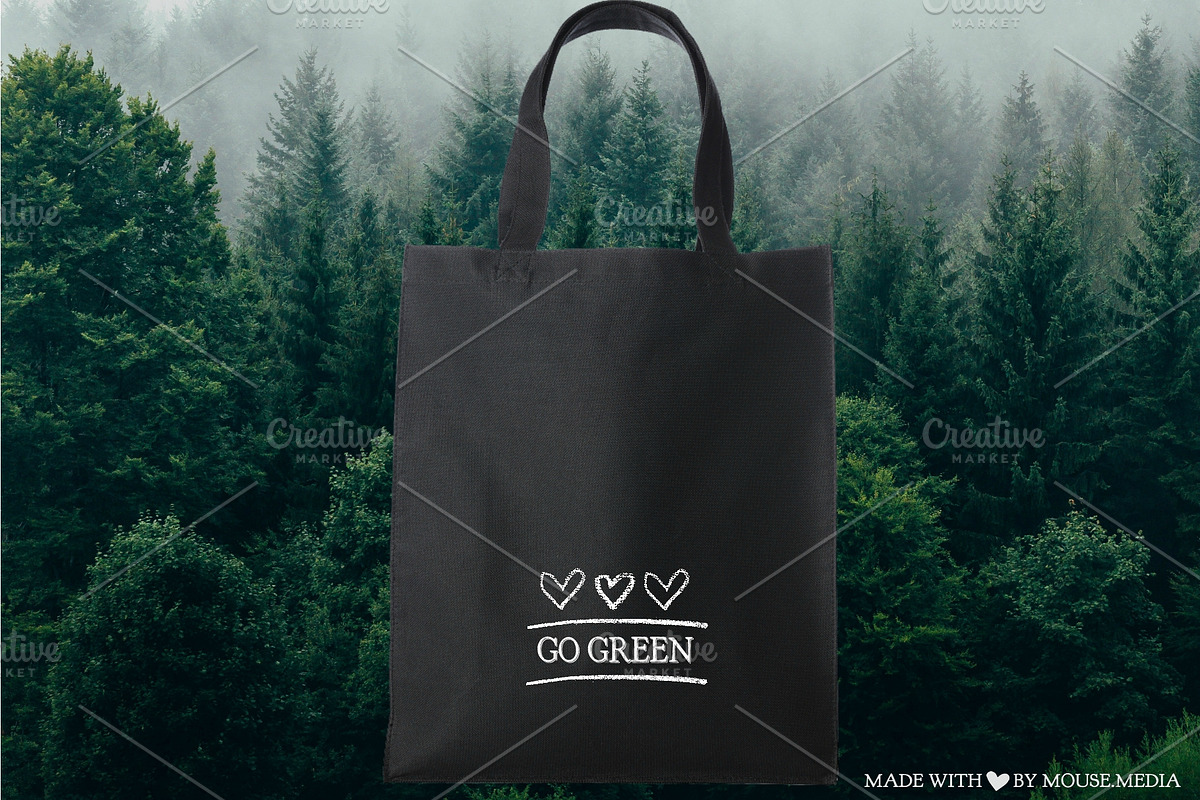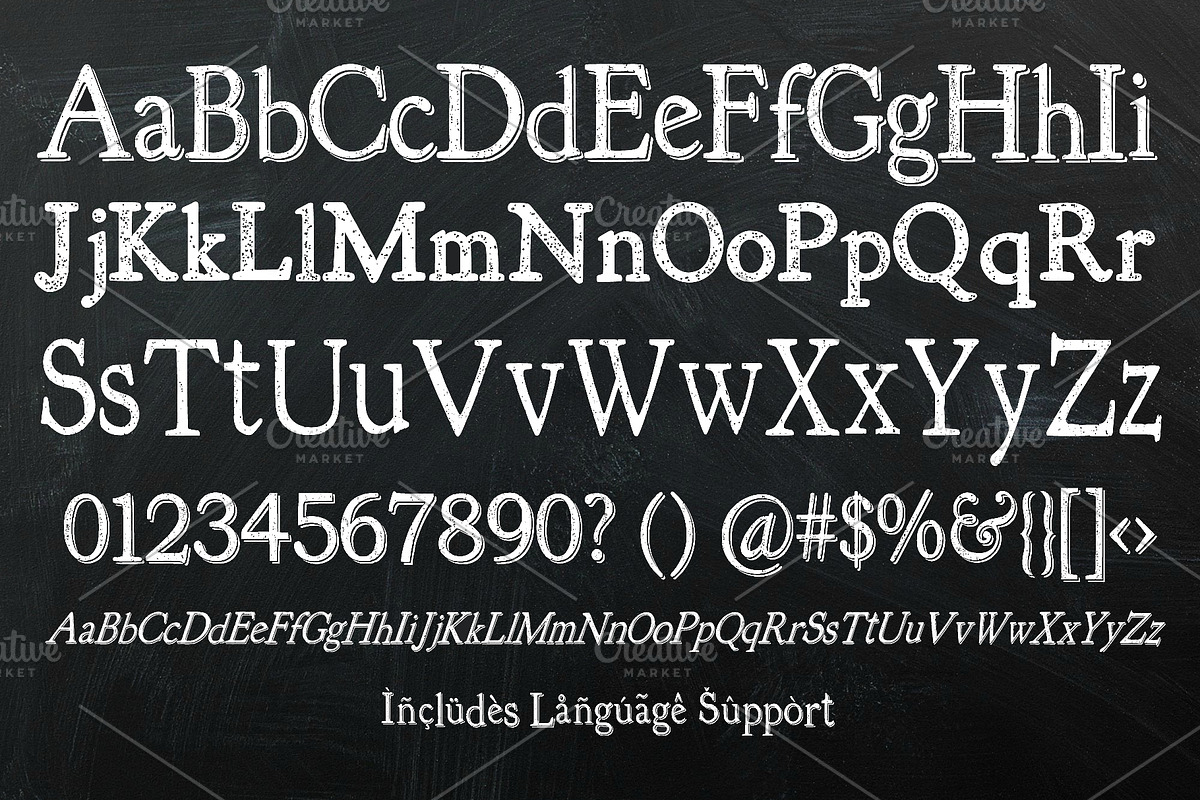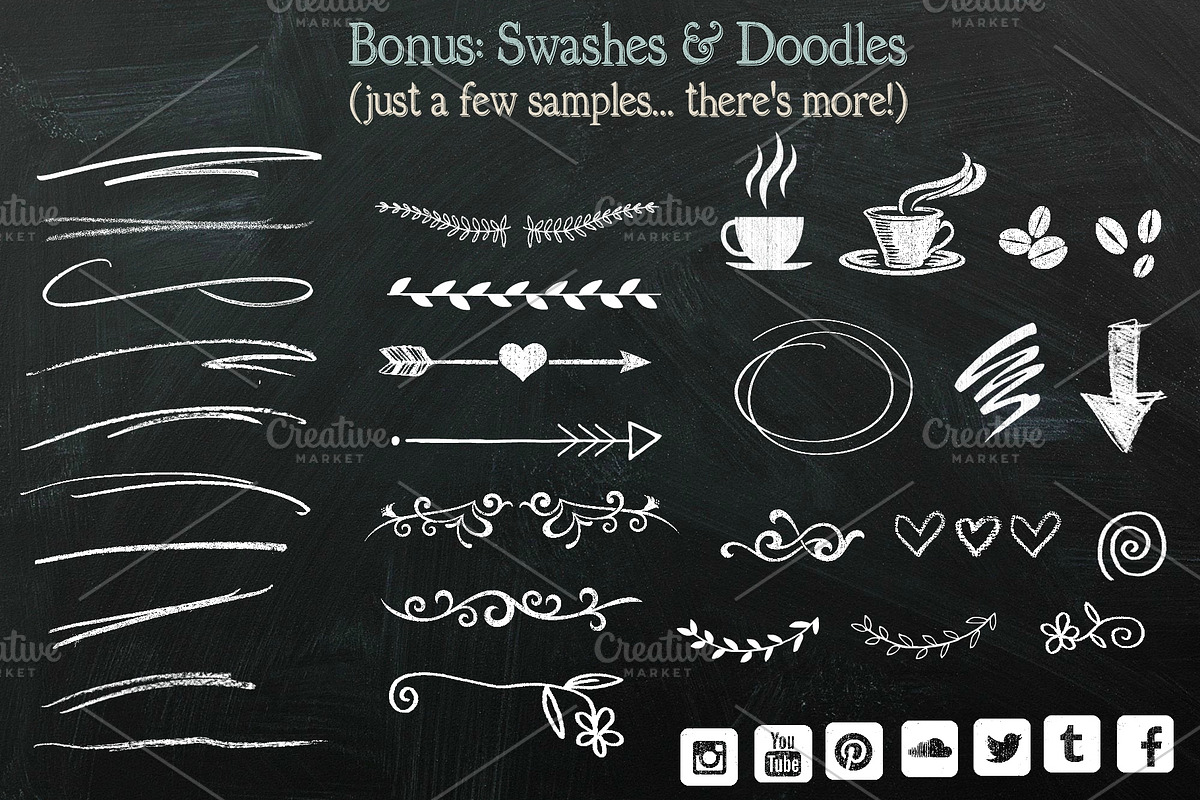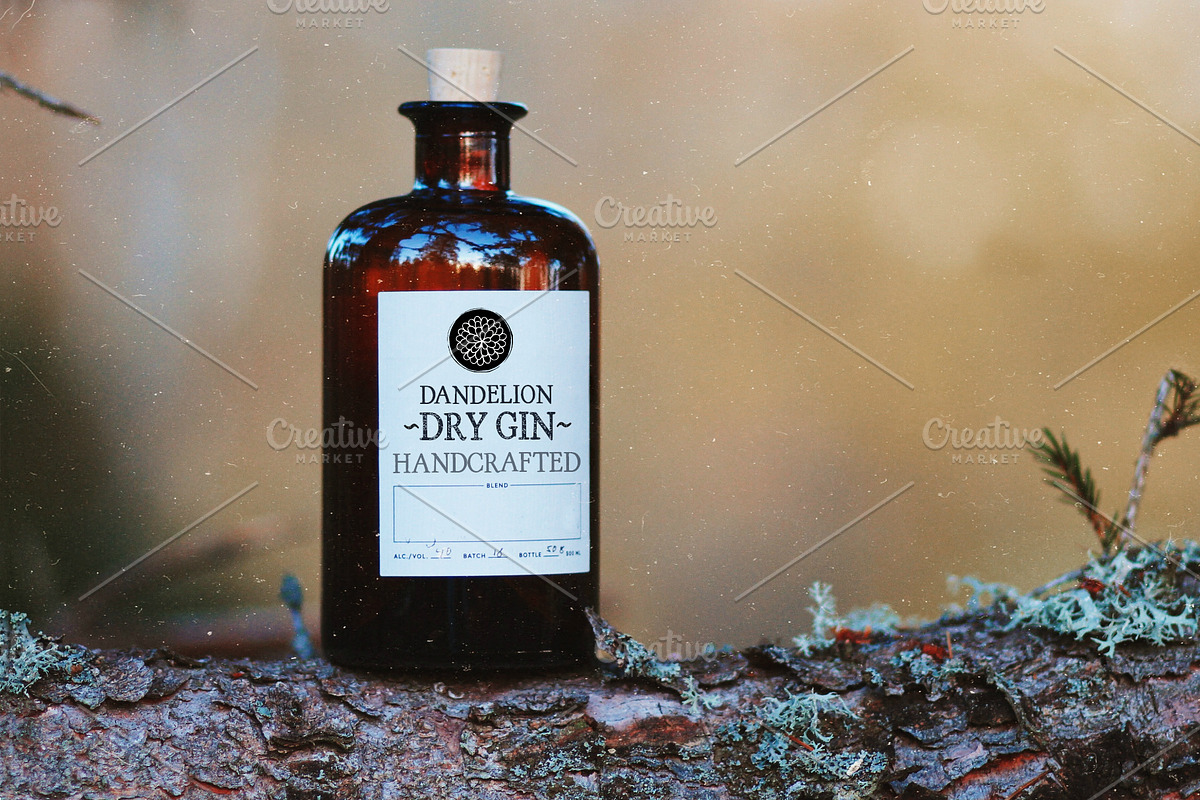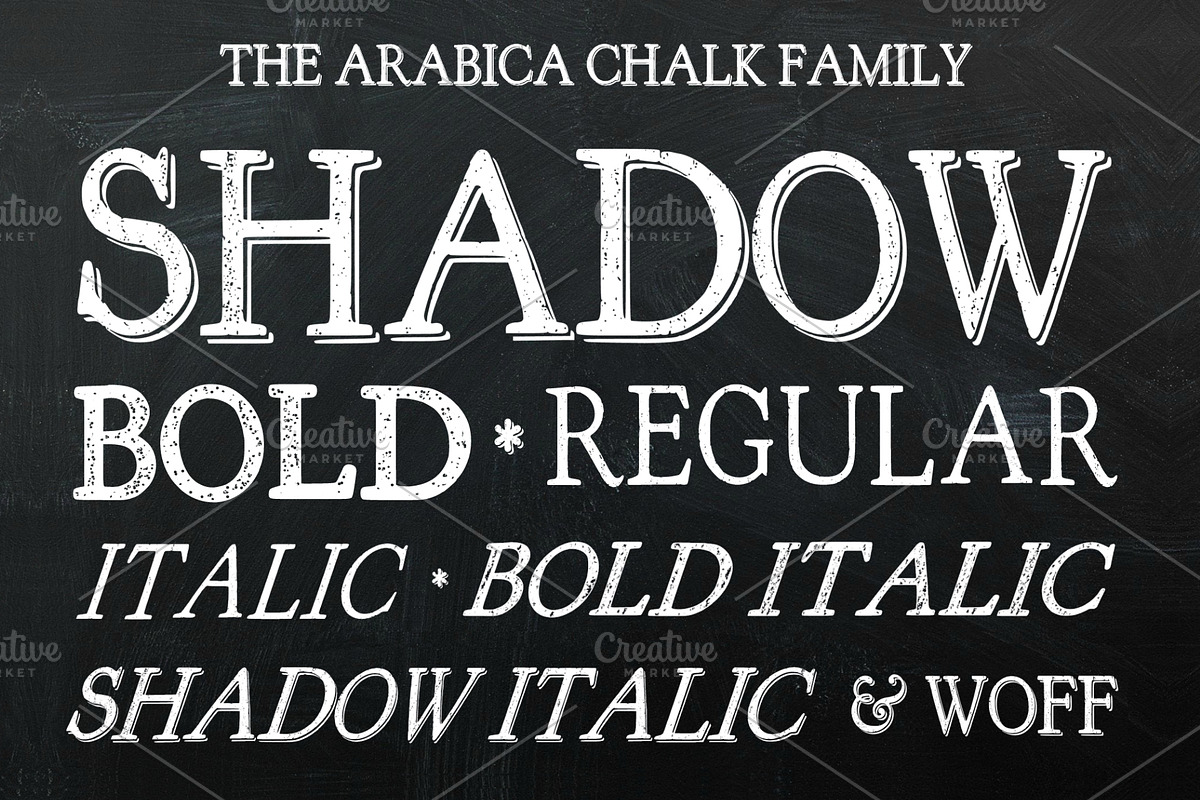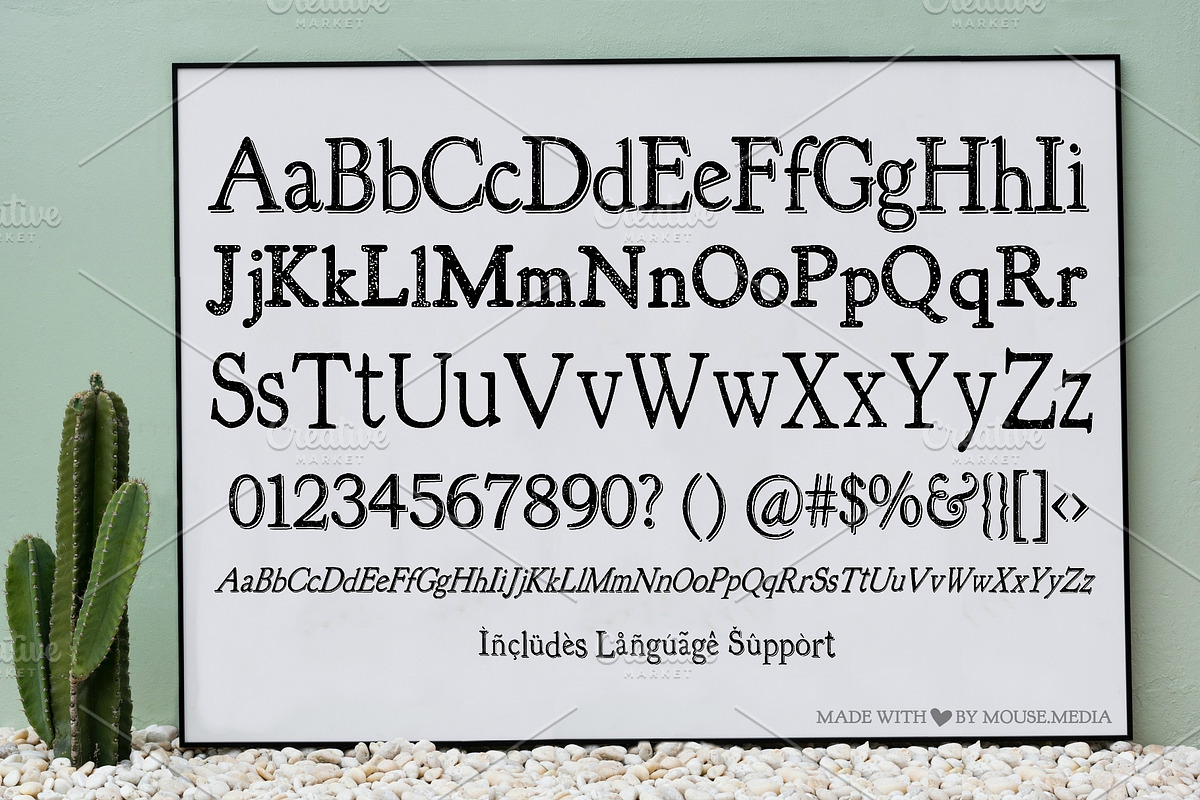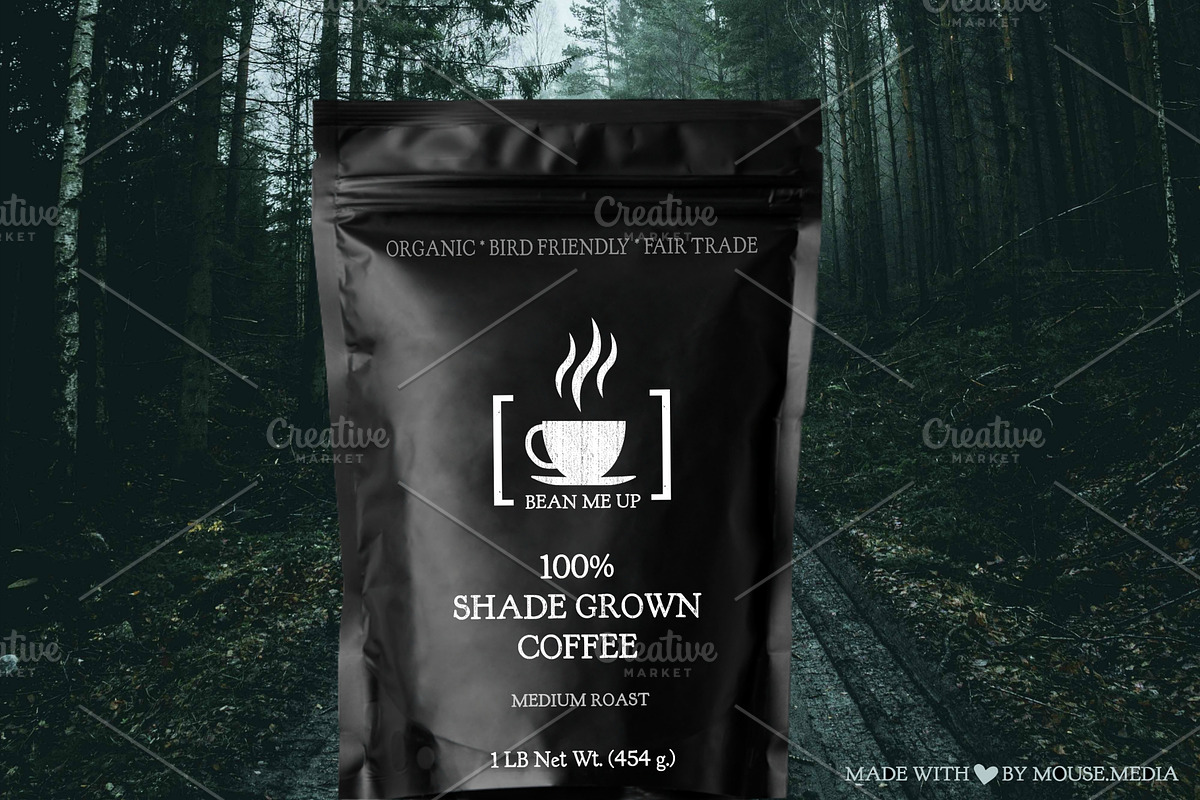
Arabica Chalk Serif Chalk Font
Introducing Arabica Chalk: A serif chalk font for beautiful lettering
Arabica Chalk Font family is a serif chalk font inspired by beautiful chalkboard lettering. Used in reverse (black on white) Arabica Chalk Font becomes an elegant distressed font for rugged branding and appeal.
At the smallest sizes the distressed texture will not be visible, which makes Arabica Chalk a clean but rugged font ideal for mystery and suspense books.
This chalk serif font family includes regular, italic, bold, bold italic, shadow text and shadow italic. I've also included an entire library of swashes, symbols and social media icons to complement your design and typography. To access them, just tap the upper and lowercase numbers and letters on your keyboard.